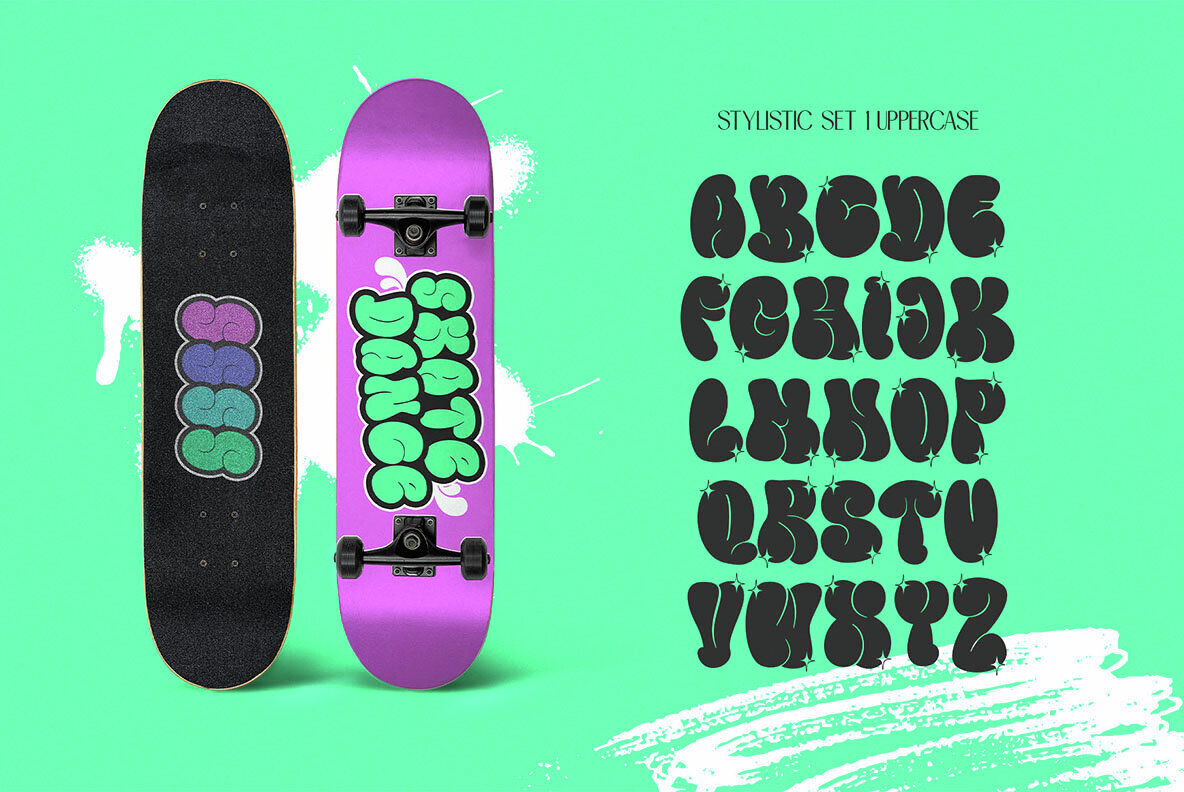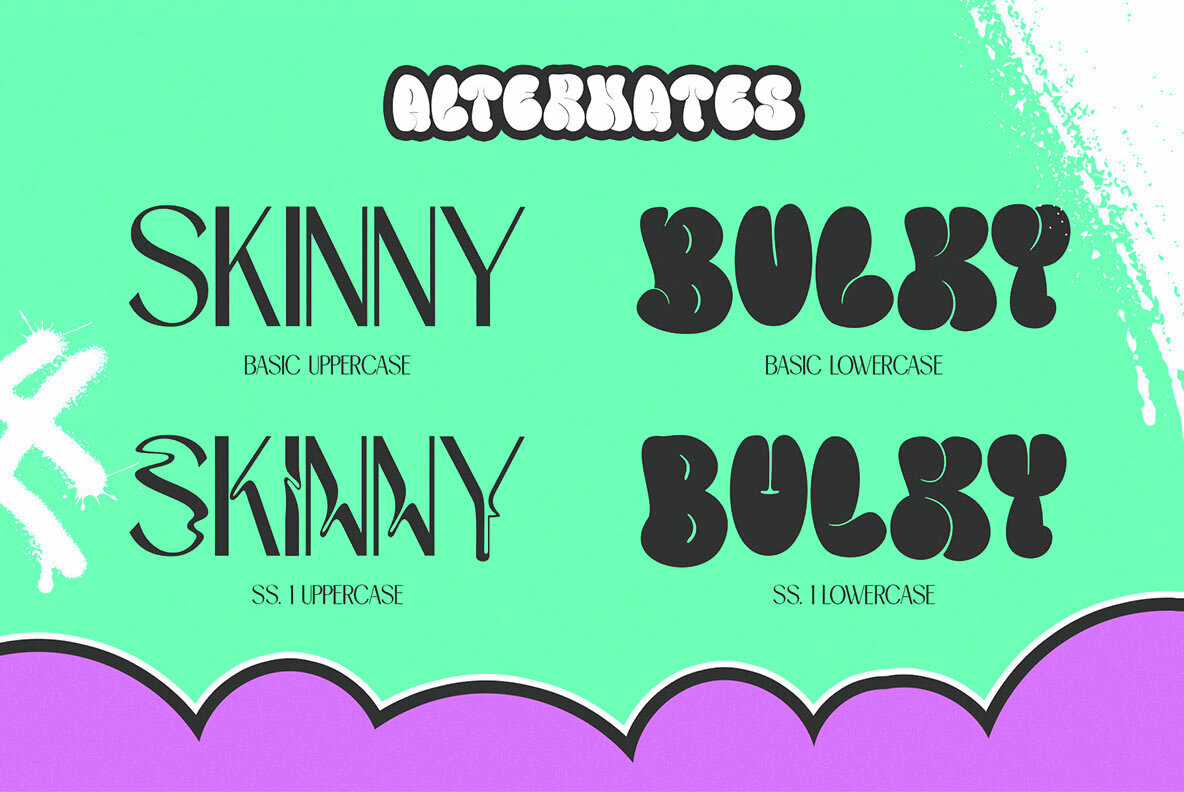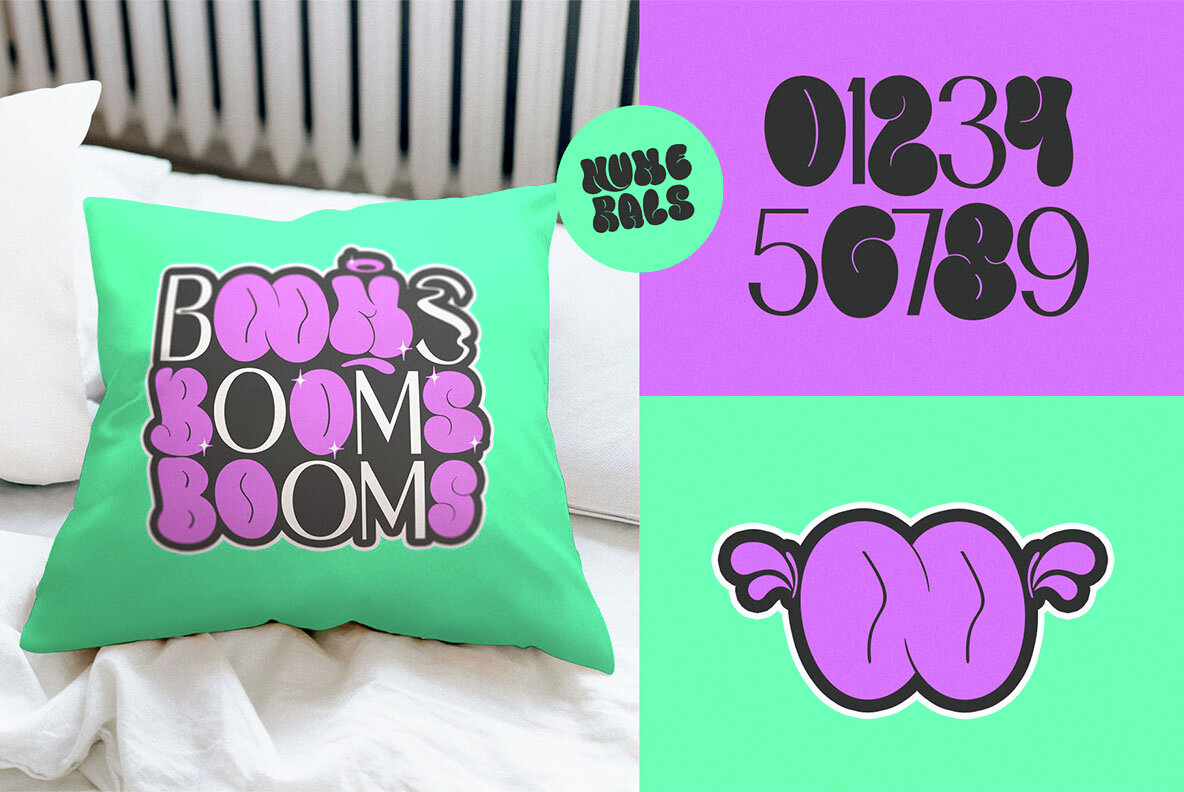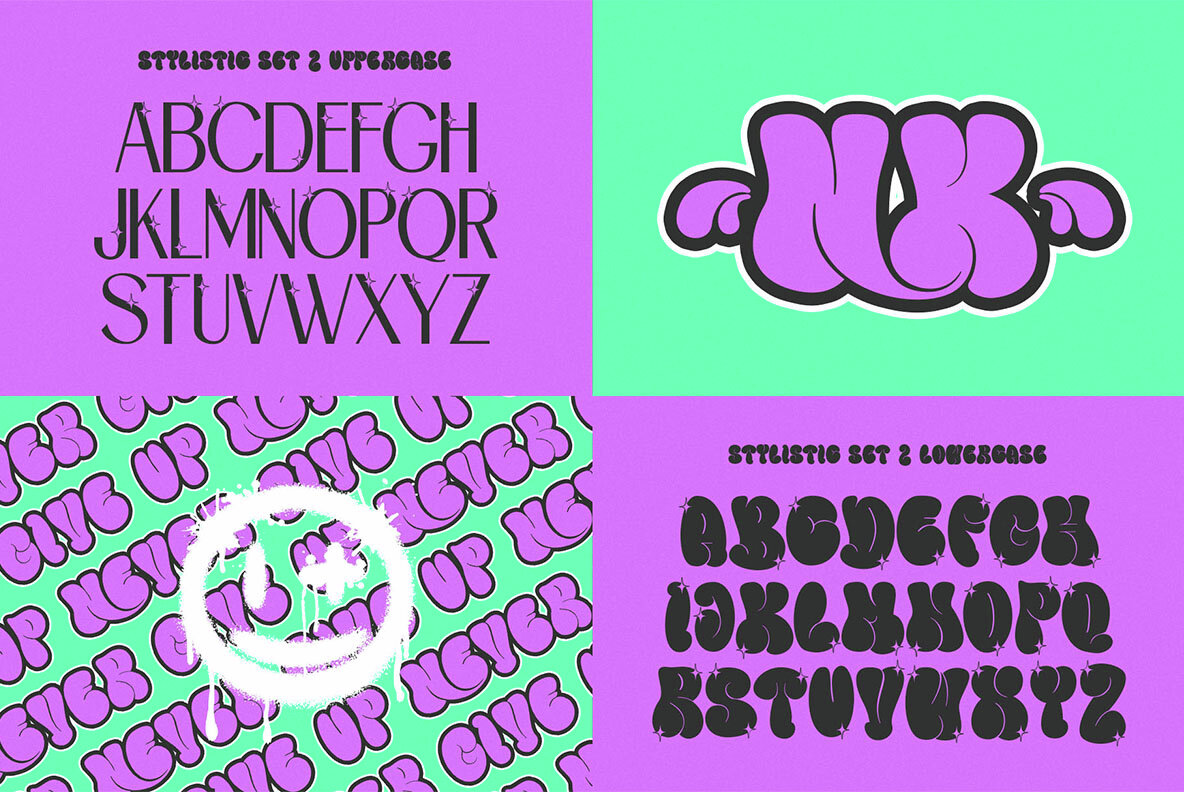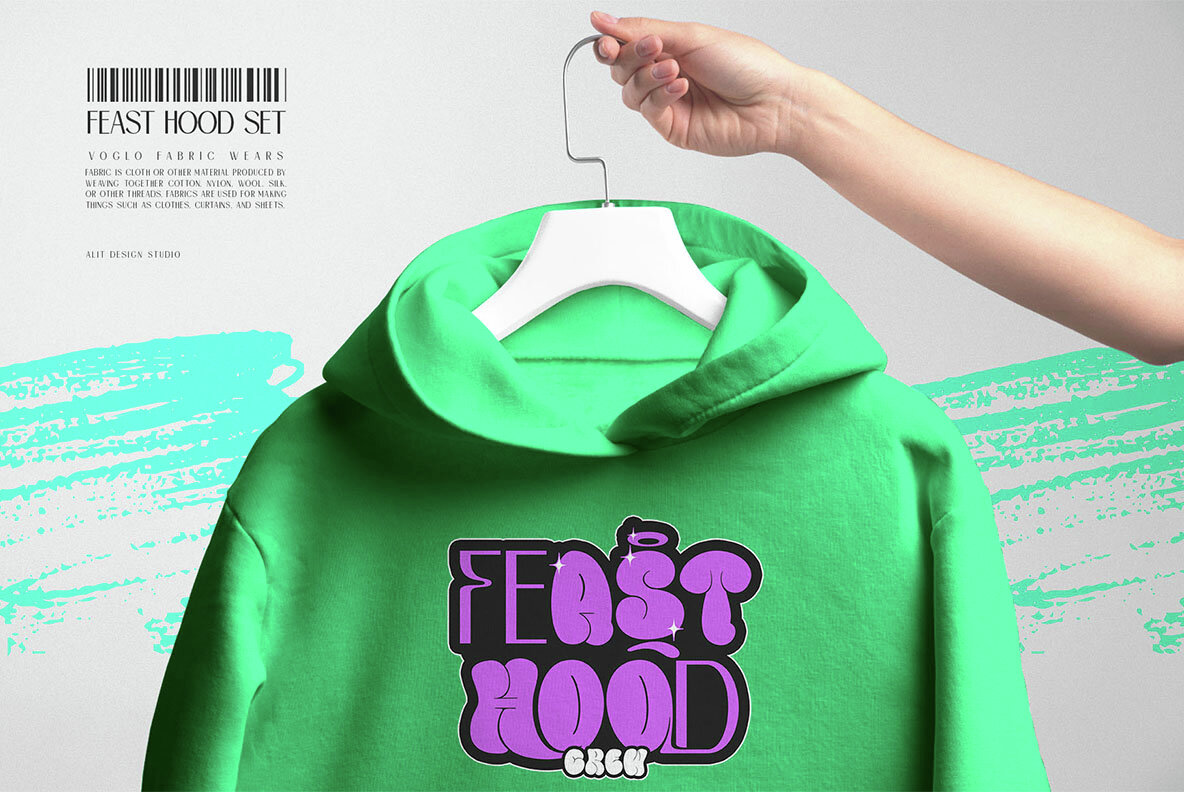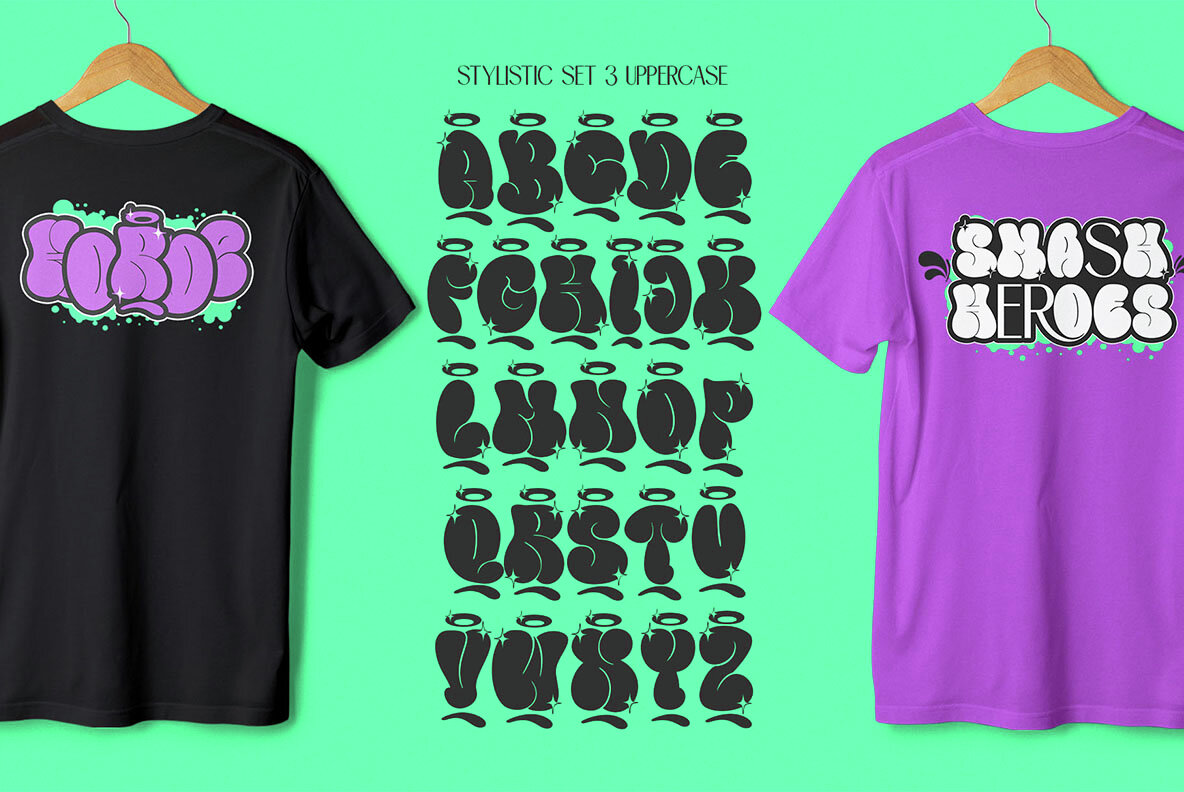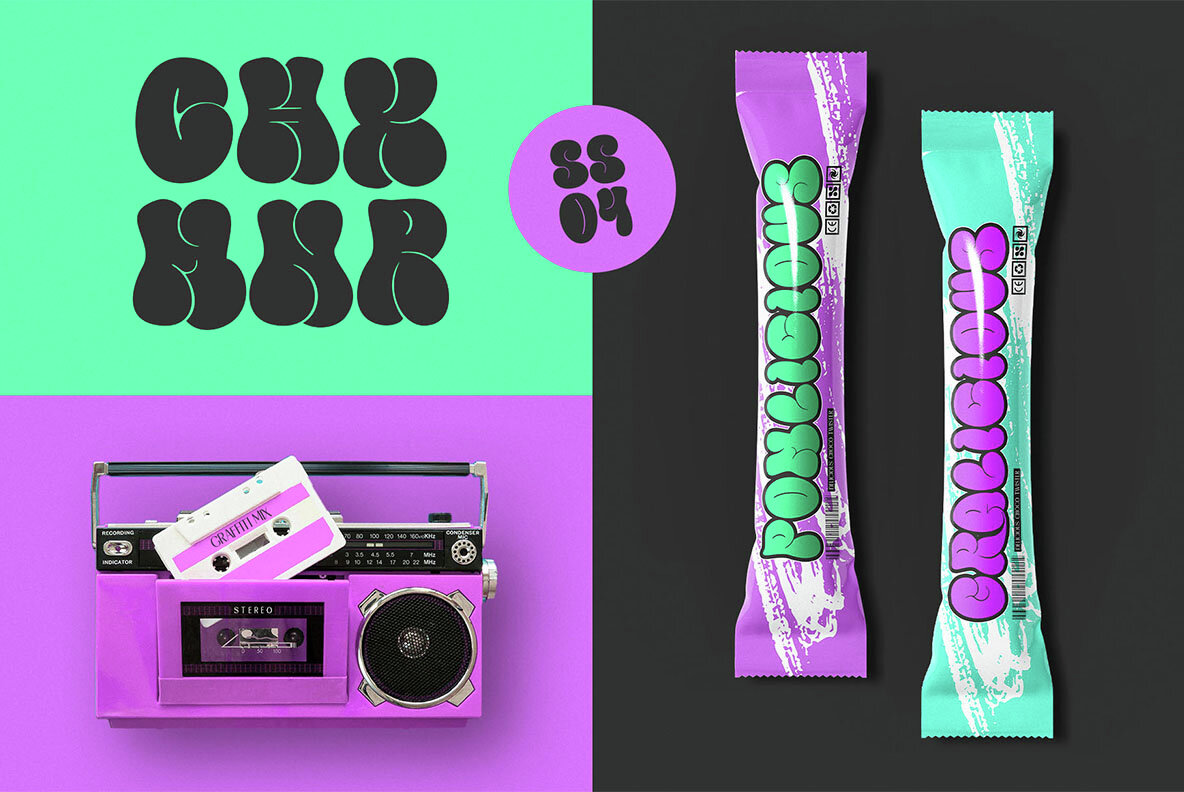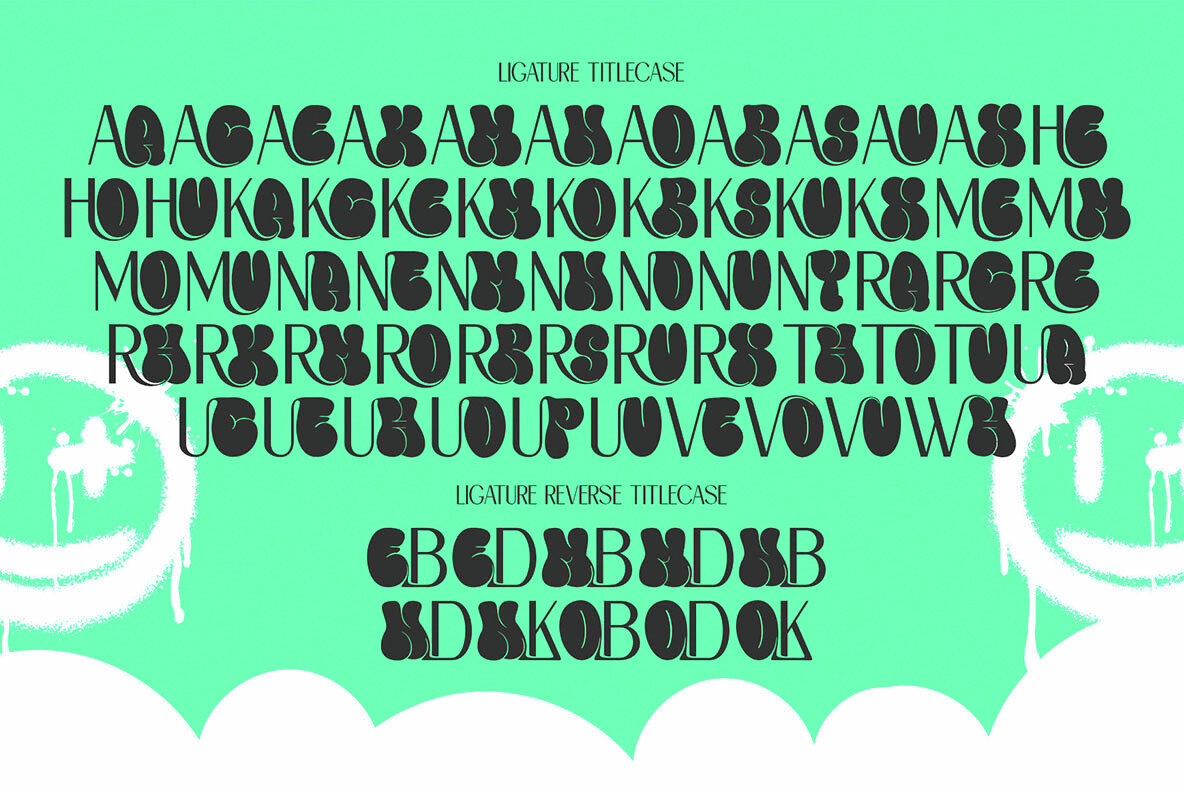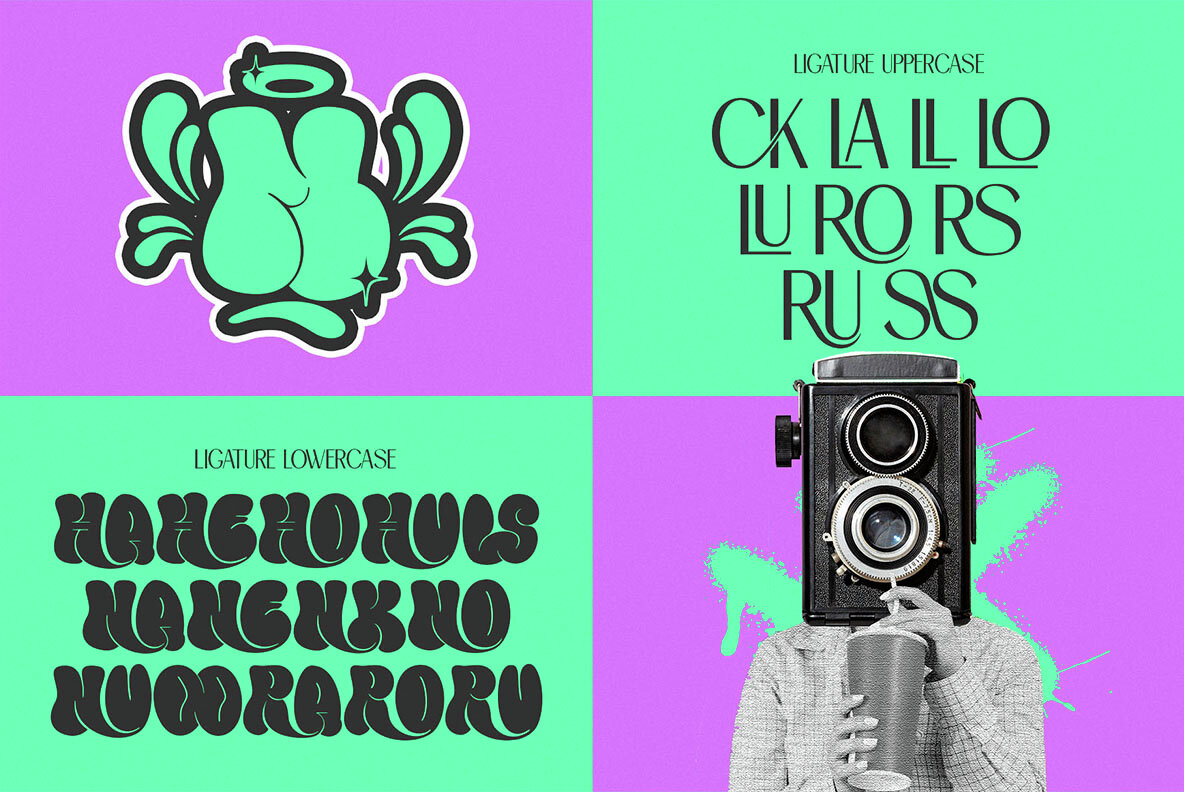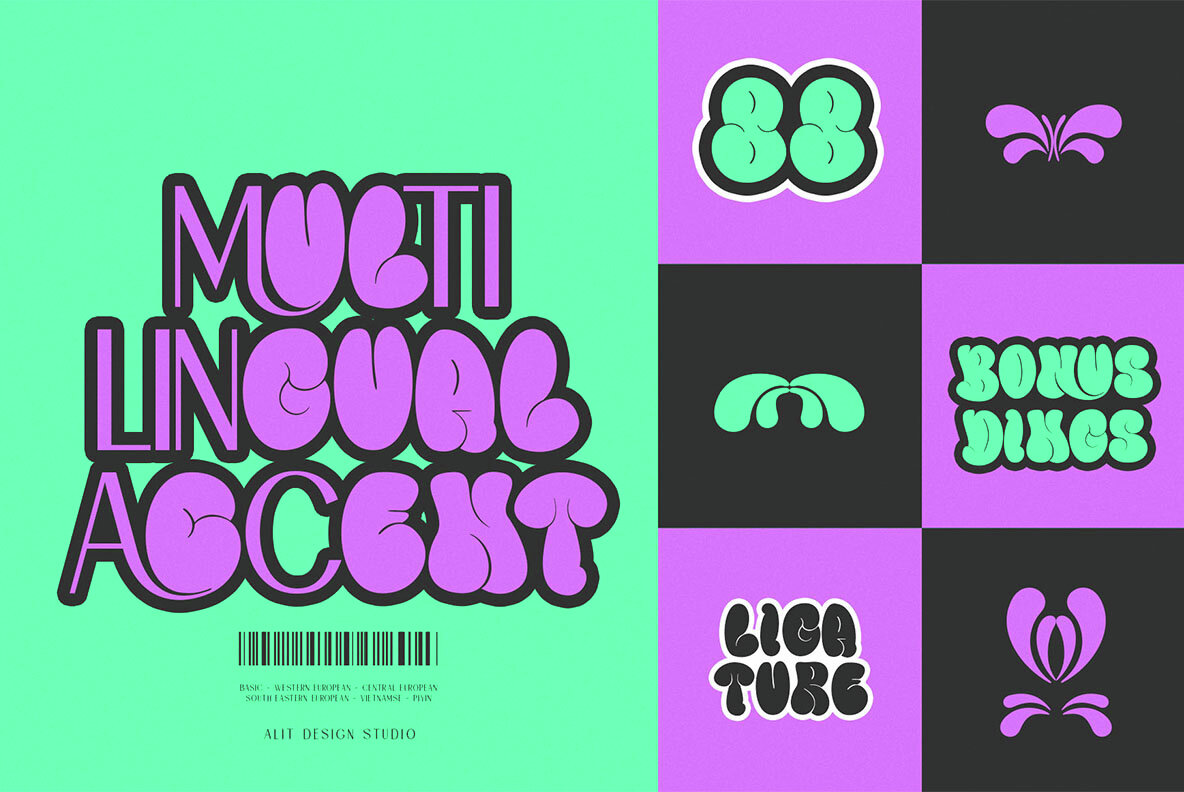
Introducing Mamboo Bubble Mix Graffiti Font: Where Sans Serif Meets Urban Edge Unleash your creativity with Mamboo Bubble Mix, a dynamic fusion of sleek sans serif typography and edgy bubble graffiti style. This unique font encapsulates the essence of urban expression, offering a versatile tool for designers, artists, and creatives alike. Key Features: Mix Font Concept: Mamboo Bubble Mix seamlessly blends the simplicity of sans serif with the vibrant energy of bubble graffiti, creating a distinctive visual impact that stands out in any project. Extensive Character Set: With a whopping 707 characters, Maboo Bubble Mix provides an extensive range of glyphs, symbols, and punctuation marks, ensuring comprehensive language support and versatility across various design applications. Alternatives and Ligatures: Elevate your designs with Mamboo Bubble Mix's alternate characters and ligatures, allowing you to customize and enhance the visual appeal of your text effortlessly. Multilingual Support: Mamboo Bubble Mix goes beyond borders with its multilingual PUA Unicode support, enabling seamless integration of diverse languages and writing systems into your projects. Usage: Whether you're crafting eye-catching posters, captivating branding materials, or striking digital artwork, Mamboo Bubble Mix empowers you to add an urban edge and playful charm to your creations. From bold headlines to subtle accents, this font offers endless possibilities for expression and creativity. Ideal For: Compatibility: Maboo Bubble Mix is compatible with a wide range of design software, including Adobe Photoshop, Illustrator, InDesign, and more, ensuring seamless integration into your creative workflow. Get Mamboo Bubble Mix Today: Fuel your creativity and elevate your designs with Mamboo Bubble Mix Graffiti Font. Experience the perfect synergy of sans serif sophistication and urban edge, and let your imagination run wild. Unlock a world of possibilities with Mamboo Bubble Mix today!